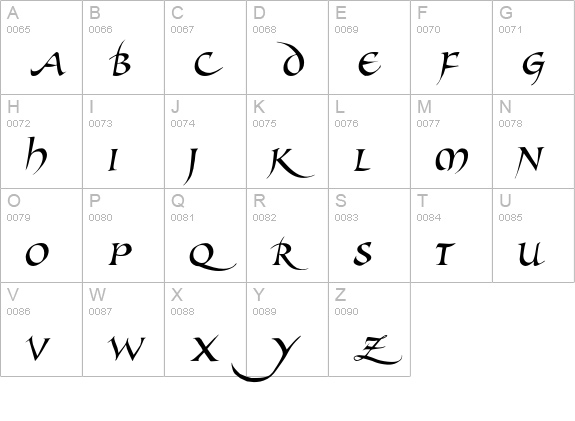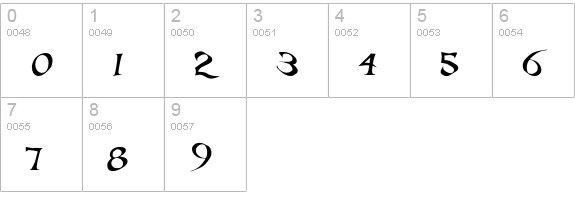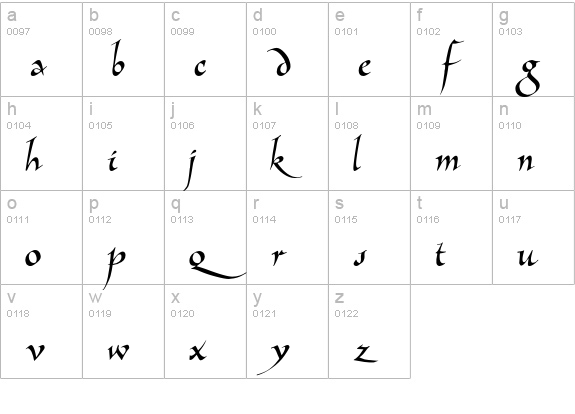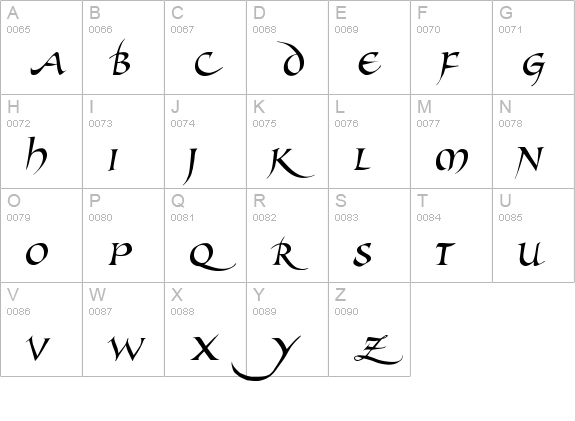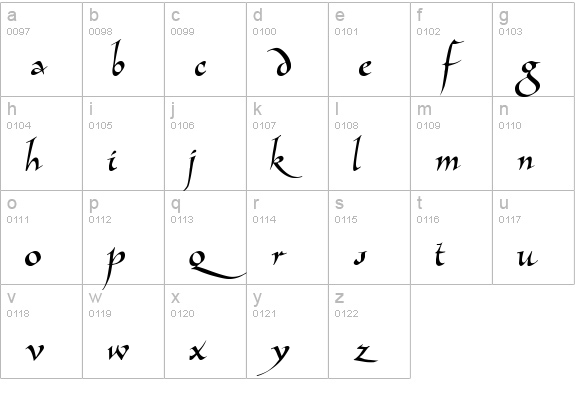
Allembert Font Details
Allembert font is a beautifully crafted typeface that exudes elegance and sophistication. With its delicate curves and graceful lines, this font is perfect for adding a touch of class to any project. The timeless design of Allembert font makes it versatile and suitable for a wide range of applications, from branding and packaging to invitations and signage. What makes Allembert font even more appealing is that it is available for free download at FontsMarket.com. This means that you can easily access this stunning font and use it in your projects without any cost. Whether you are a designer looking to elevate your creations or an individual in need of a stylish font for personal use, Allembert font is the perfect choice. Download it today and enhance your designs with this exquisite typeface.